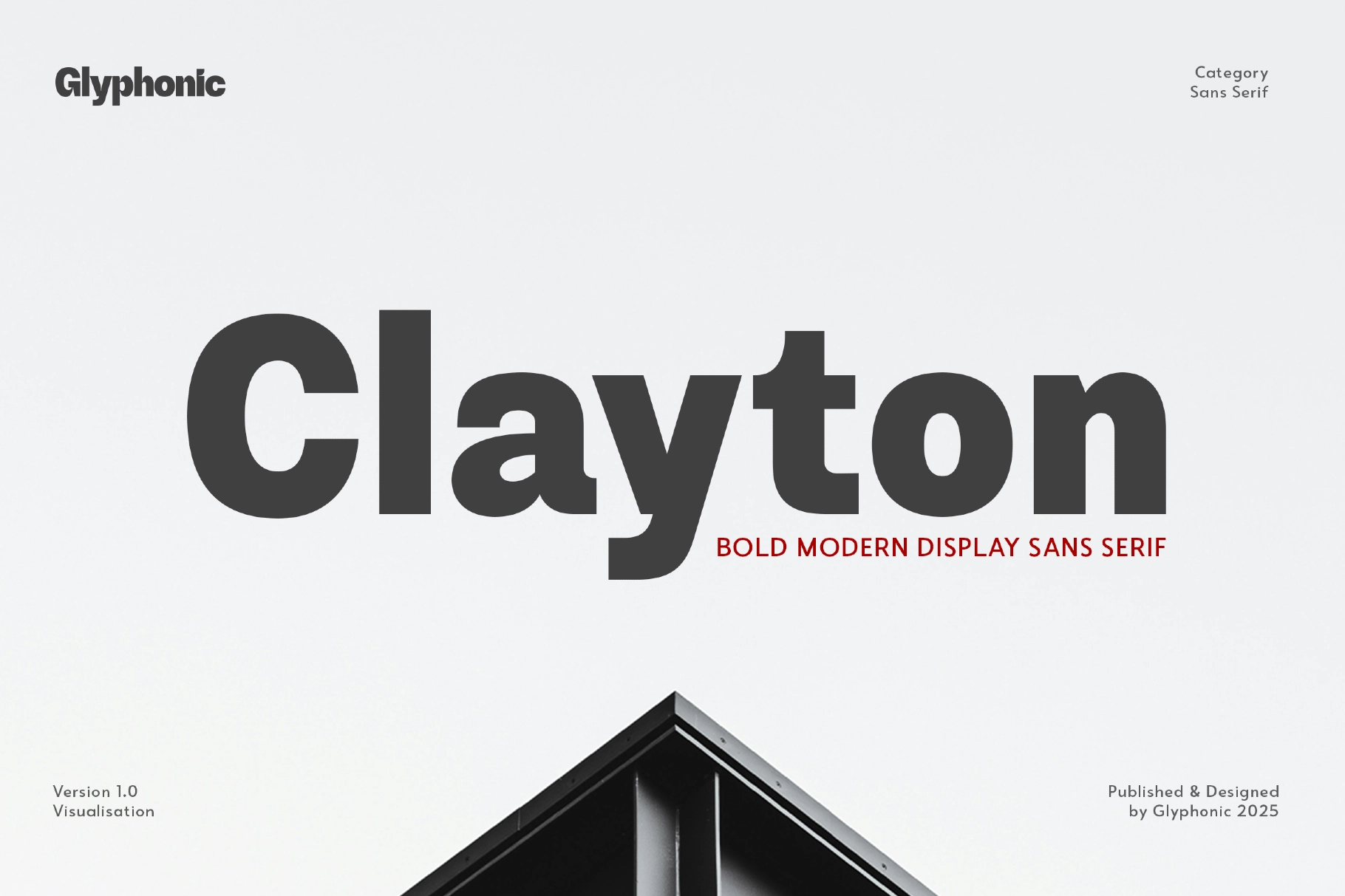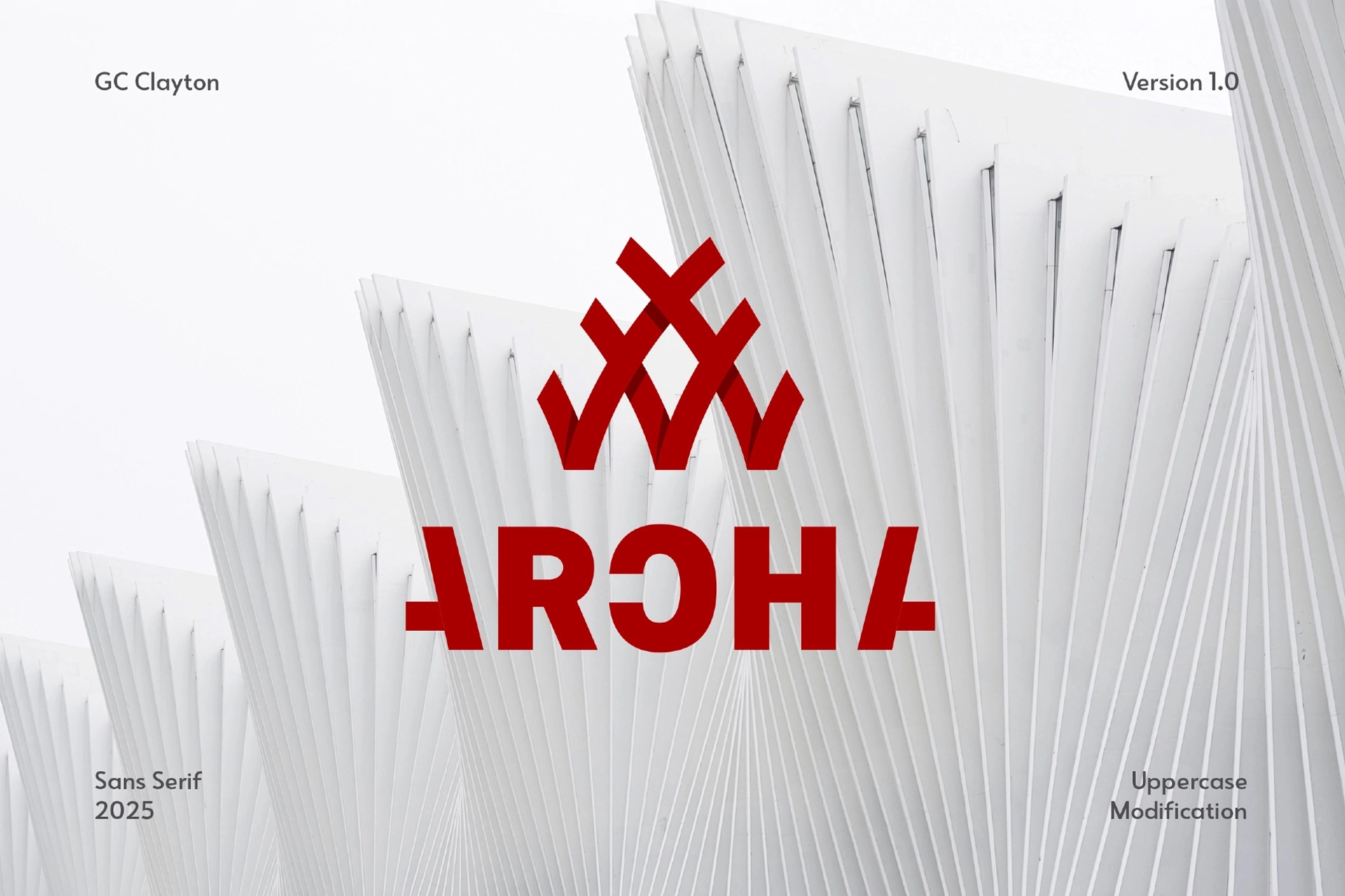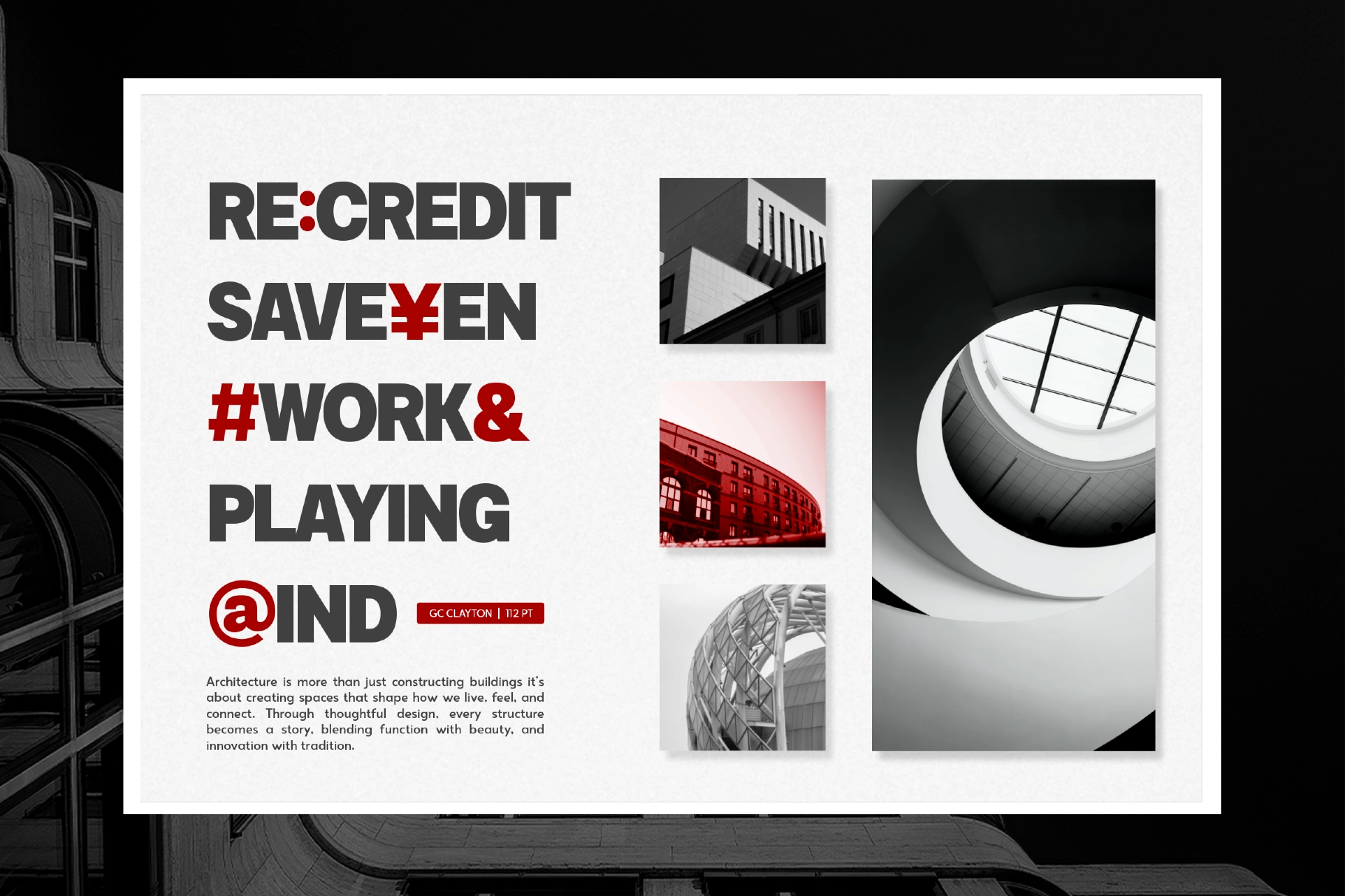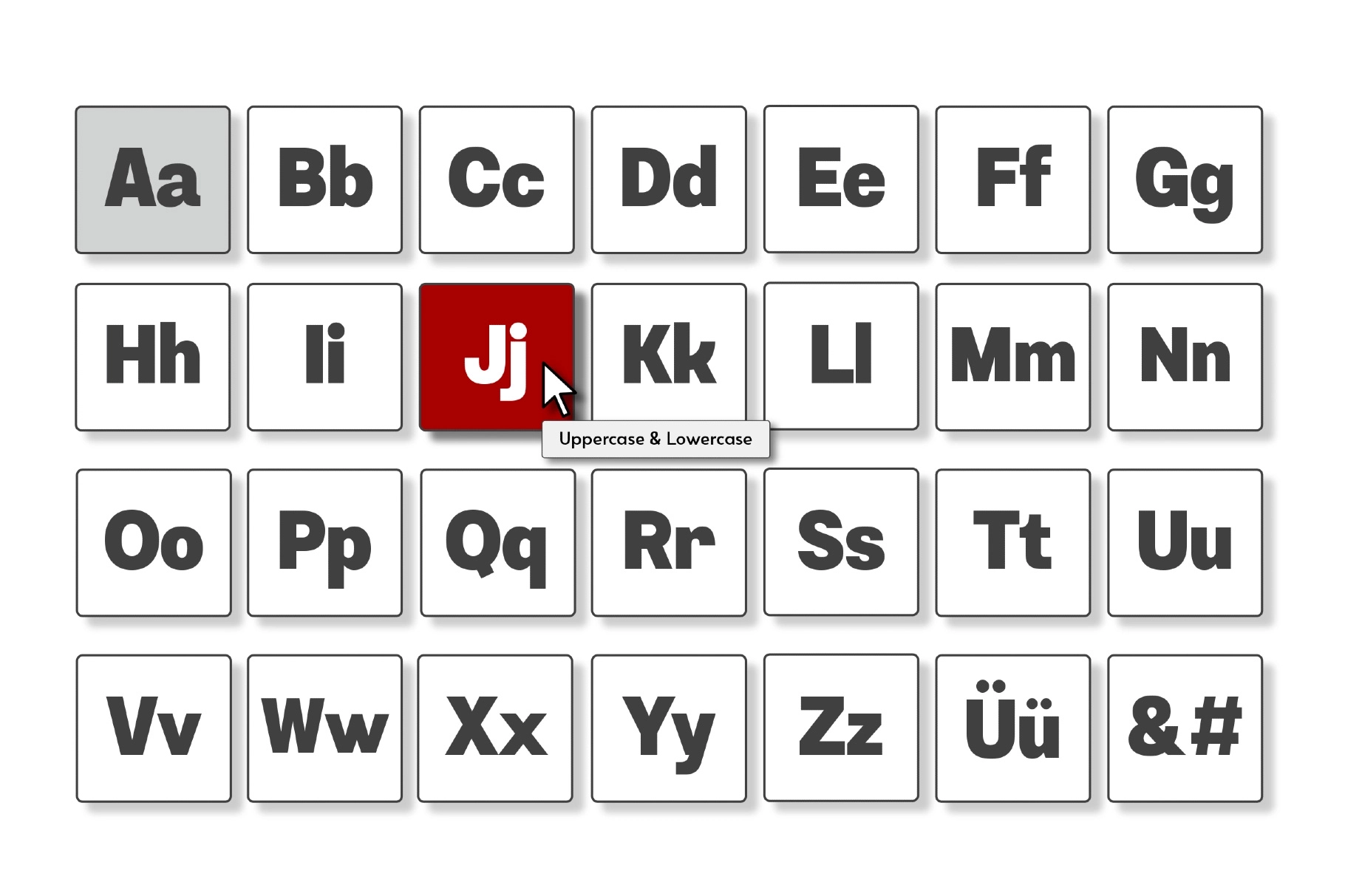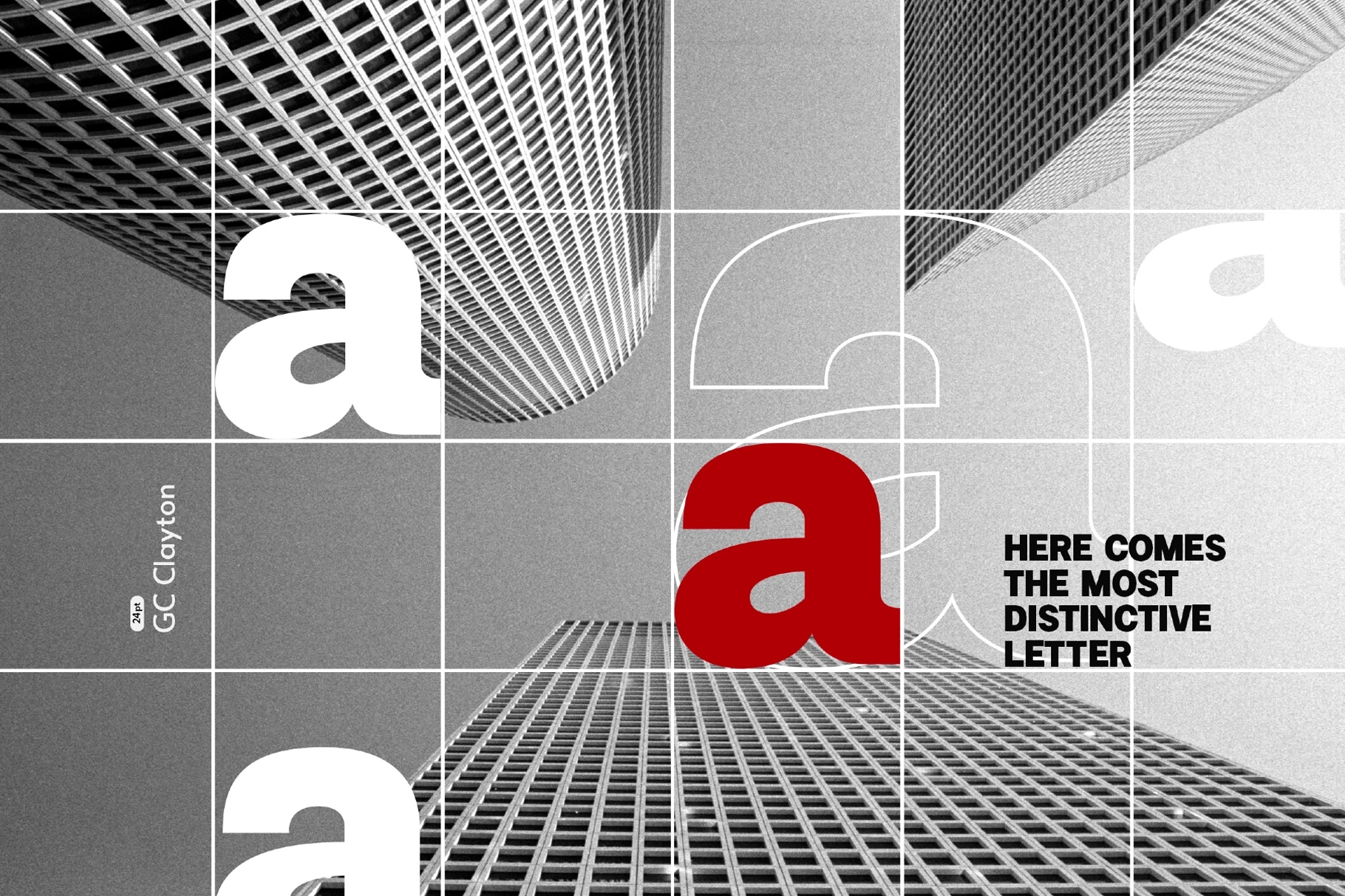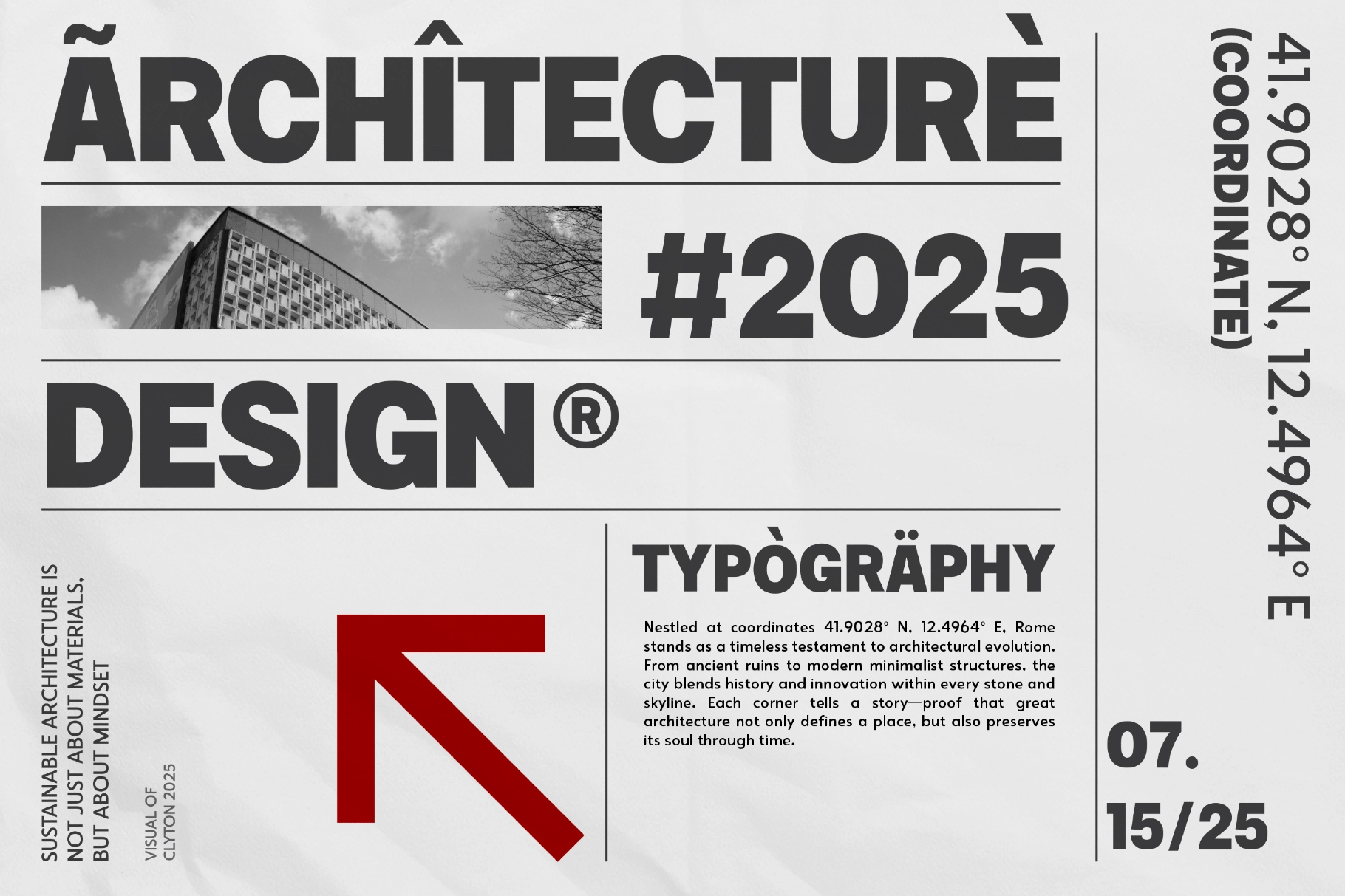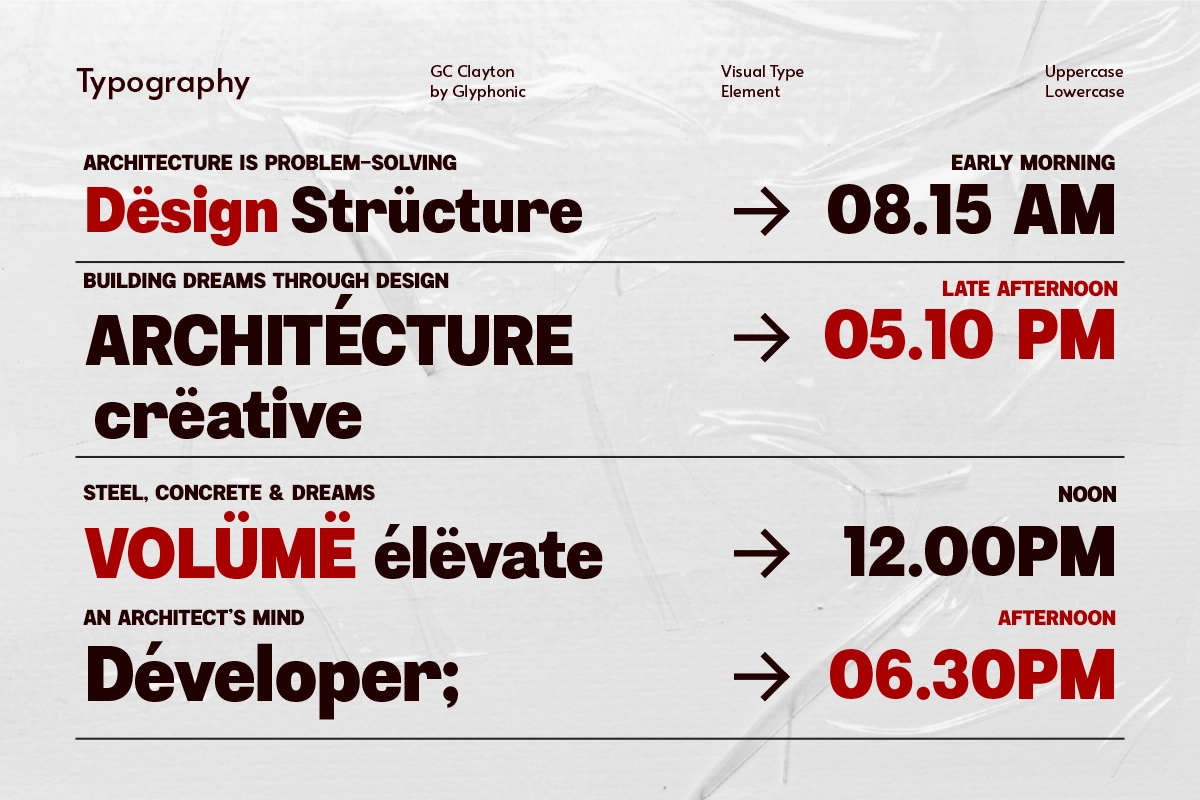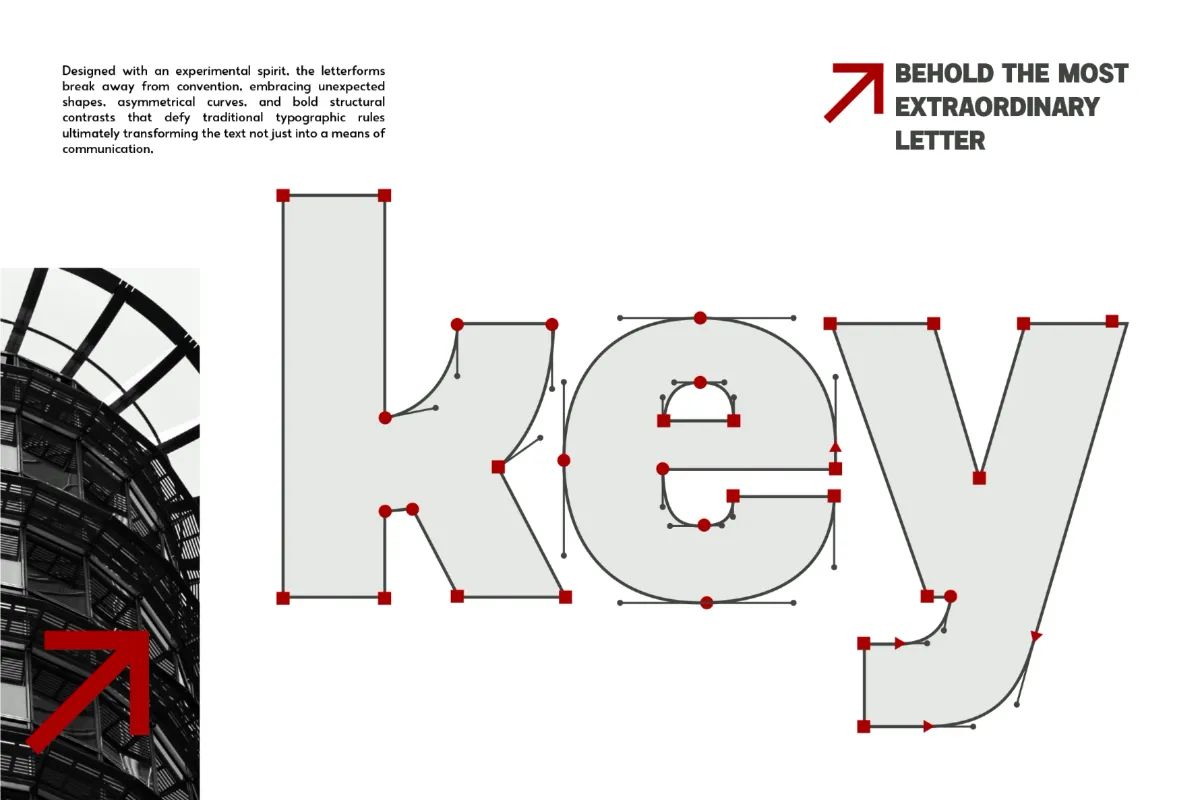
GC Clayton - Modern Bold Display Sans
Clayton
Clayton - Modern Bold Display Sans it Blends with Modern bold style. Perfectly suited for headlines, branding, logos, packaging, editorial layouts, it’s crafted to leave a lasting impression. With its high contrast strokes, modern sans, and future style, Clayton brings personality and sophistication to any design.
Whether you're designing for fashion, lifestyle, or artistic visuals, this typeface offers versatility and refined style.
Make your design bold, refined, and timeless with Clayton.